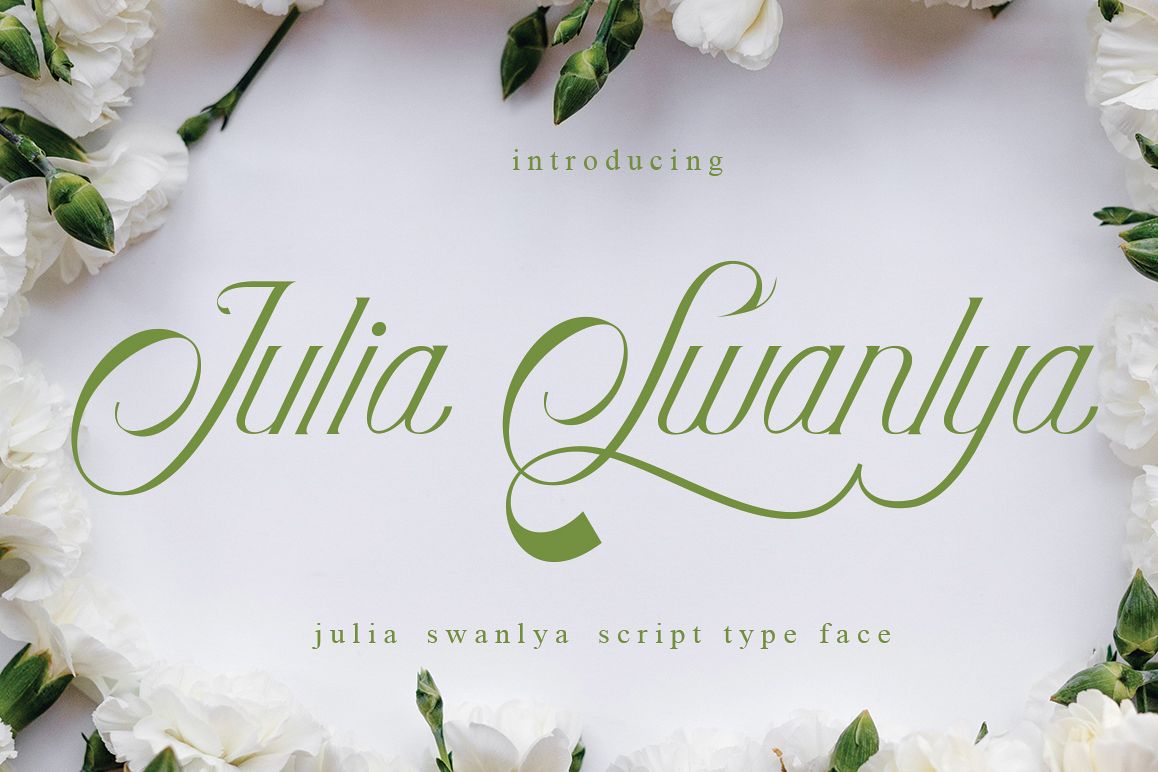
Julia Swanlya
Julia Swanliya
Julia Swanlya This font was designed by handwriting,
and it has a modernand unique forms of calligraphy, the writing style is very natural and multiple
elegant font
and alternates